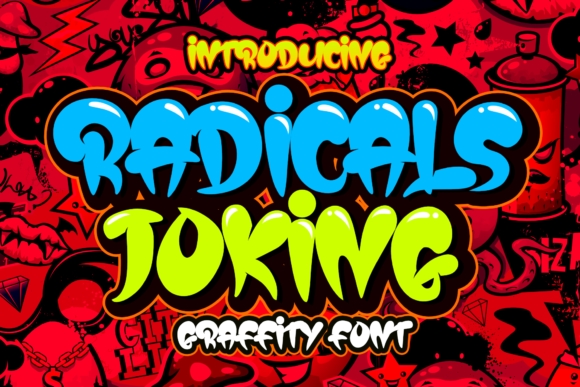
Prepare to be taken on a captivating typography adventure with Radicals Joking Font, a graffiti-inspired display font that's guaranteed to inject color, personality, and a dash of playful charm into your creative projects. Designed with passion by Hayletter Creative, this font is not just a collection of letters; it's an expression of vibrancy, creativity, and the sheer joy of self-expression.
Picture this: you're working on a cartoon-themed design, and you need a font that captures the essence of playfulness and wonder. Radicals Joking Font steps up to the plate, effortlessly bringing your characters and scenes to life with its distinctive graffiti style. The bold lines and playful curves dance across the page, evoking a sense of carefree fun and boundless imagination.
Or perhaps you're creating a game for children, a digital playground where dreams come true. Radicals Joking Font becomes your trusty sidekick, adding a touch of magic to every level and character. Its vibrant energy captivates young minds, drawing them deeper into the enchanting world you've created.
But Radicals Joking Font isn't just confined to the realm of cartoons and games. Its versatility knows no bounds. Unleash your creativity and explore its potential in branding, posters, social media graphics, and any other project that calls for a touch of urban flair. With Radicals Joking Font, you can make a statement, grab attention, and leave a lasting impression.